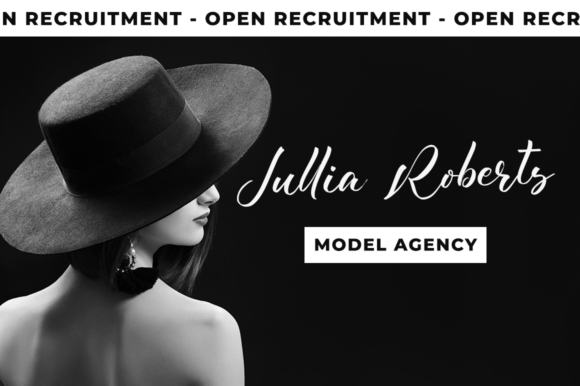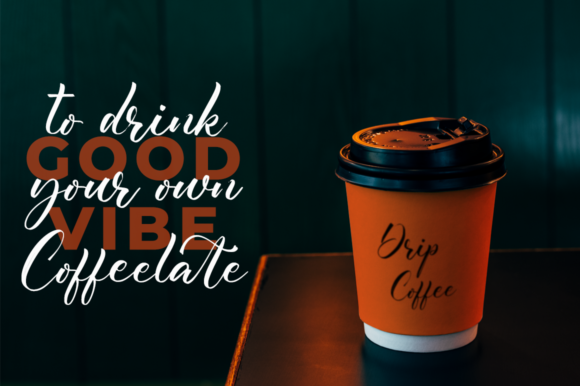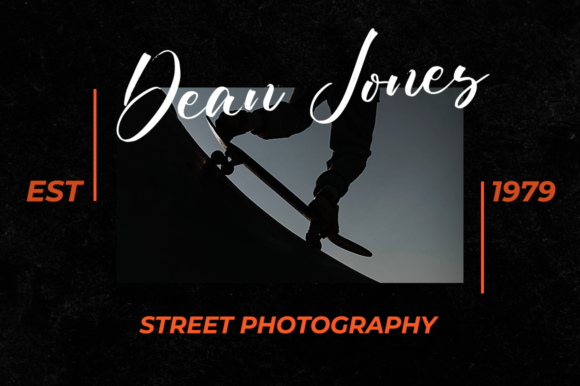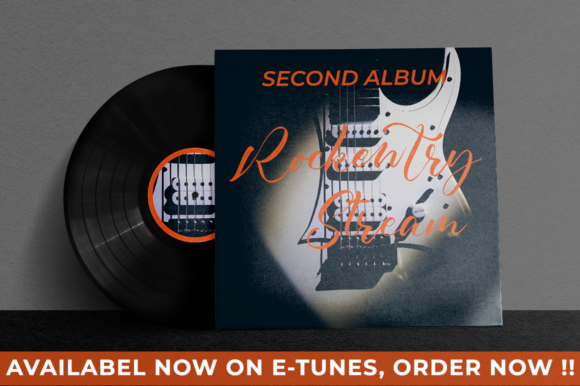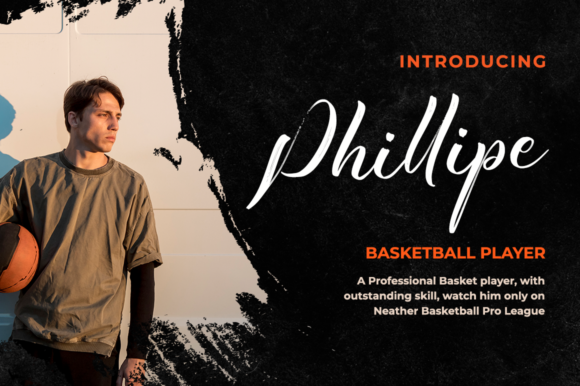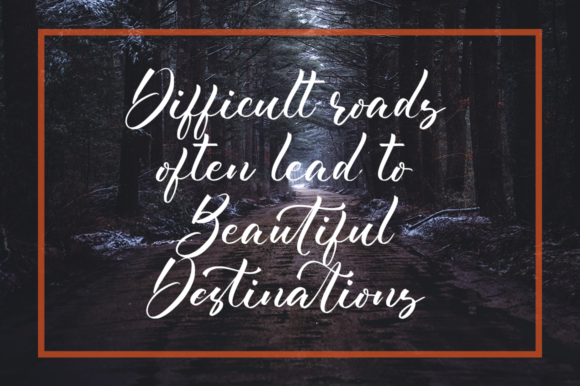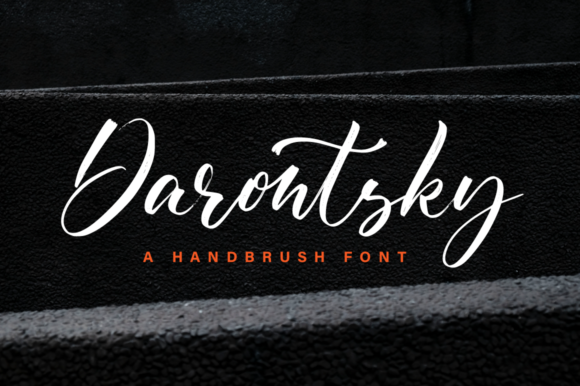
Introducing Darontsky Font: The Ultimate Luxury Calligraphy Typeface
Are you looking for a font that can add a touch of luxury and romance to your design projects? Look no further than Darontsky Font! This beautiful calligraphy typeface is perfect for designers and crafters who want to create stunning visuals that exude elegance and sophistication. In this article, we’ll take a closer look at Darontsky Font, its features, and how it can elevate your design projects.
What is Darontsky Font?
Darontsky Font is a romantic and sweet calligraphy typeface that features characters that dance along the baseline. Its unique design makes it perfect for adding a touch of luxury to any design project. Whether you’re working on a branding project, packaging design, or social media graphics, Darontsky Font is sure to make your designs stand out.
Key Features of Darontsky Font
So, what makes Darontsky Font so special? Here are some of its key features:
- Romantic and Sweet Design: Darontsky Font has a romantic and sweet design that is perfect for creating elegant and sophisticated visuals.
- Calligraphy Style: The font features a beautiful calligraphy style that is reminiscent of traditional luxury brands.
- Characters that Dance along the Baseline: The characters in Darontsky Font are designed to dance along the baseline, creating a sense of movement and fluidity.
- Luxury Spark: Darontsky Font is designed to add a luxury spark to any design project, making it perfect for high-end brands and designers.
How to Use Darontsky Font in Your Design Projects
Darontsky Font is incredibly versatile and can be used in a variety of design projects. Here are some ideas to get you started:
- Branding and Logo Design: Use Darontsky Font to create a luxurious brand identity that exudes elegance and sophistication.
- Packaging Design: Add a touch of luxury to your packaging design with Darontsky Font, perfect for high-end products and gift wrapping.
- Social Media Graphics: Use Darontsky Font to create stunning social media graphics that will make your brand stand out.
- Wedding and Event Design: Darontsky Font is perfect for wedding and event design, adding a touch of romance and elegance to your visuals.
Tips for Getting the Most out of Darontsky Font
Here are some tips for getting the most out of Darontsky Font:
- Use it Sparingly: Darontsky Font is a statement font, so use it sparingly to make a big impact.
- Pair it with a Simple Font: Pair Darontsky Font with a simple font to create contrast and make your design stand out.
- Experiment with Colors: Darontsky Font looks stunning in a variety of colors, so experiment to find the perfect combination for your design.
Darontsky Font is a beautiful and luxurious calligraphy typeface that is perfect for designers and crafters who want to add a touch of elegance and sophistication to their design projects. With its romantic and sweet design, characters that dance along the baseline, and luxury spark, Darontsky Font is sure to make your designs stand out. Whether you’re working on a branding project, packaging design, or social media graphics, Darontsky Font is the perfect choice.